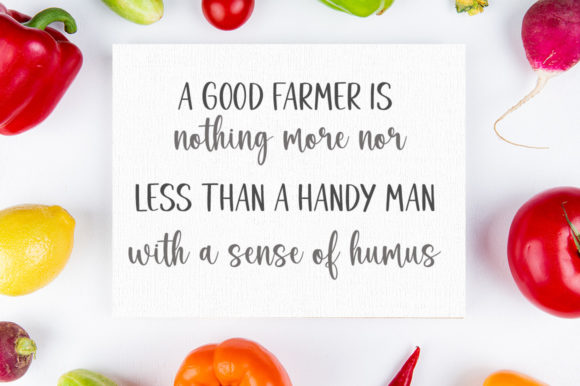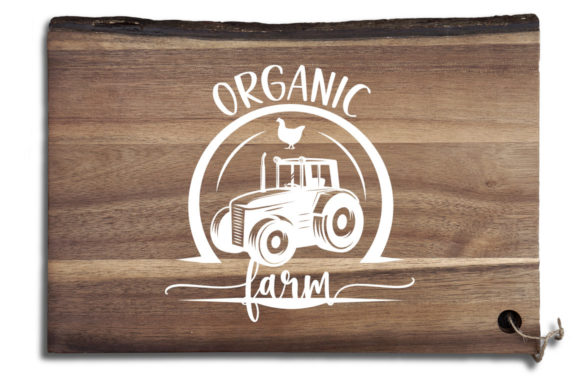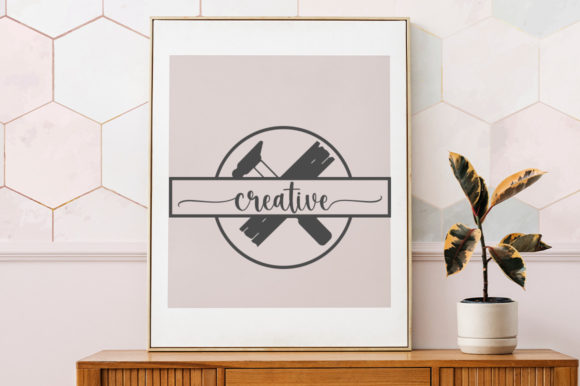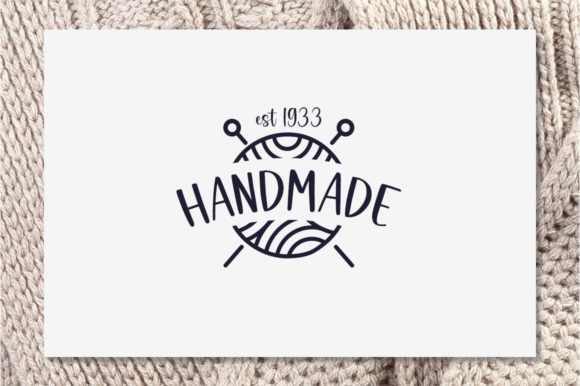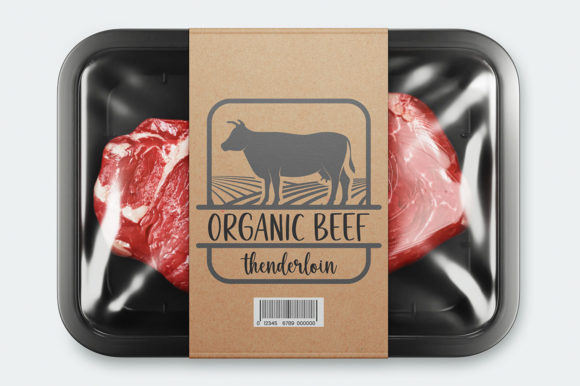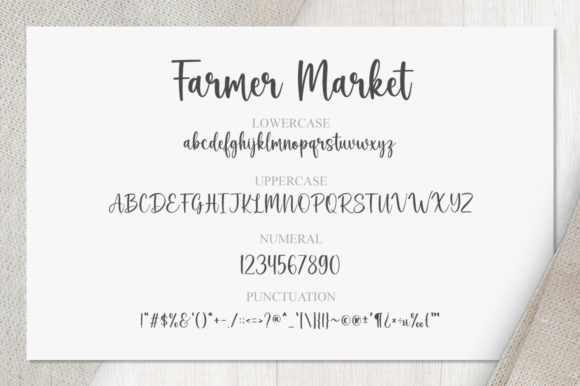
Introducing the Delightful Farmer Market Font: Elevate Your Crafts with a Chic and Cheery Touch
Are you a designer, crafter, or DIY enthusiast looking for a unique and charming font to add a personal touch to your projects? Look no further than the Farmer Market Font, a delightful duo of fonts designed to complement each other perfectly. This fantastic font combination is ideal for adding a chic and cheery touch to your crafts, making it perfect for a wide range of creative projects.
A Perfect Pair: The Dual Fonts of Farmer Market
The Farmer Market Font consists of two carefully crafted fonts that work in harmony to create a visually stunning effect. Whether used together or separately, these fonts are sure to add a touch of elegance and whimsy to your designs. The fonts are meticulously designed to ensure that they complement each other perfectly, allowing you to create beautiful and cohesive designs with ease.
The Farmer Market Font is a dream come true for designers and crafters alike. Whether you’re creating invitations, greeting cards, scrapbook pages, or other DIY projects, this font duo is sure to inspire your creativity. The fonts’ playful yet elegant style makes them perfect for a wide range of applications, from rustic and vintage-themed designs to modern and sophisticated projects.
With the Farmer Market Font, the creative possibilities are endless. Here are just a few ideas to get you started:
- Create stunning invitations and greeting cards for special occasions, such as weddings, birthdays, and holidays.
- Add a personal touch to your scrapbook pages and photo albums with custom titles and captions.
- Design beautiful and eye-catching packaging for your handmade crafts and products.
- Develop unique and engaging social media graphics, blog posts, and website content.
Tips and Tricks for Getting the Most Out of Farmer Market Font
To help you get the most out of the Farmer Market Font, here are a few tips and tricks:
- Experiment with different font combinations to create unique and eye-catching designs.
- Use the font’s glyphs and swashes to add decorative touches to your designs.
- Play with font sizes and colors to create visual interest and hierarchy in your designs.
- Don’t be afraid to get creative and try out new and innovative design ideas!